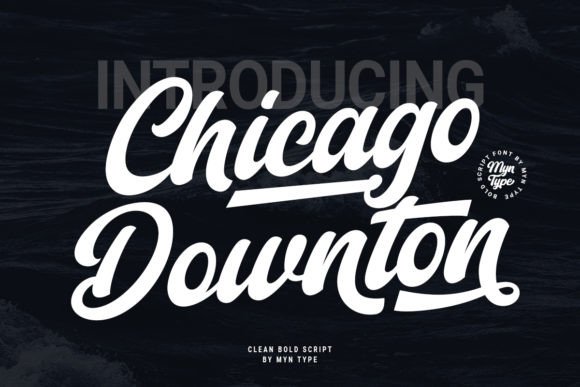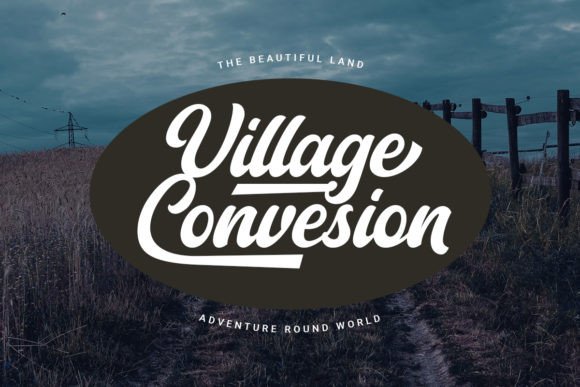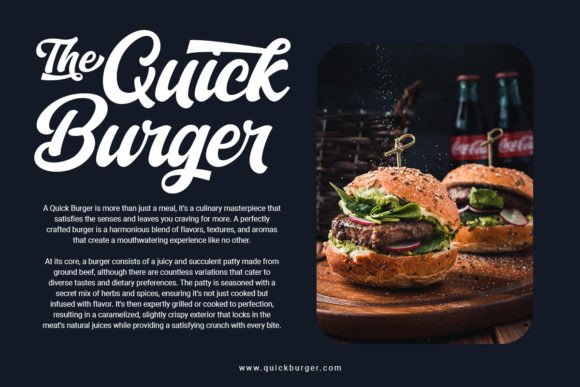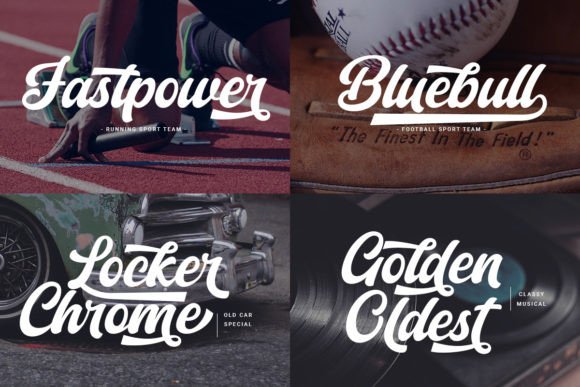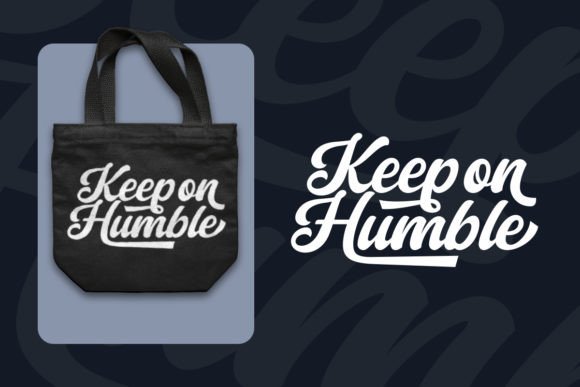
Chicago Downton Font
Chicago Downton is bold script. Inspired from the baseball font with a touch of vintage script. It will add an incredibly joyful touch to your designs. Add this beautiful display font to each of your creative ideas and notice how it makes them stand out!